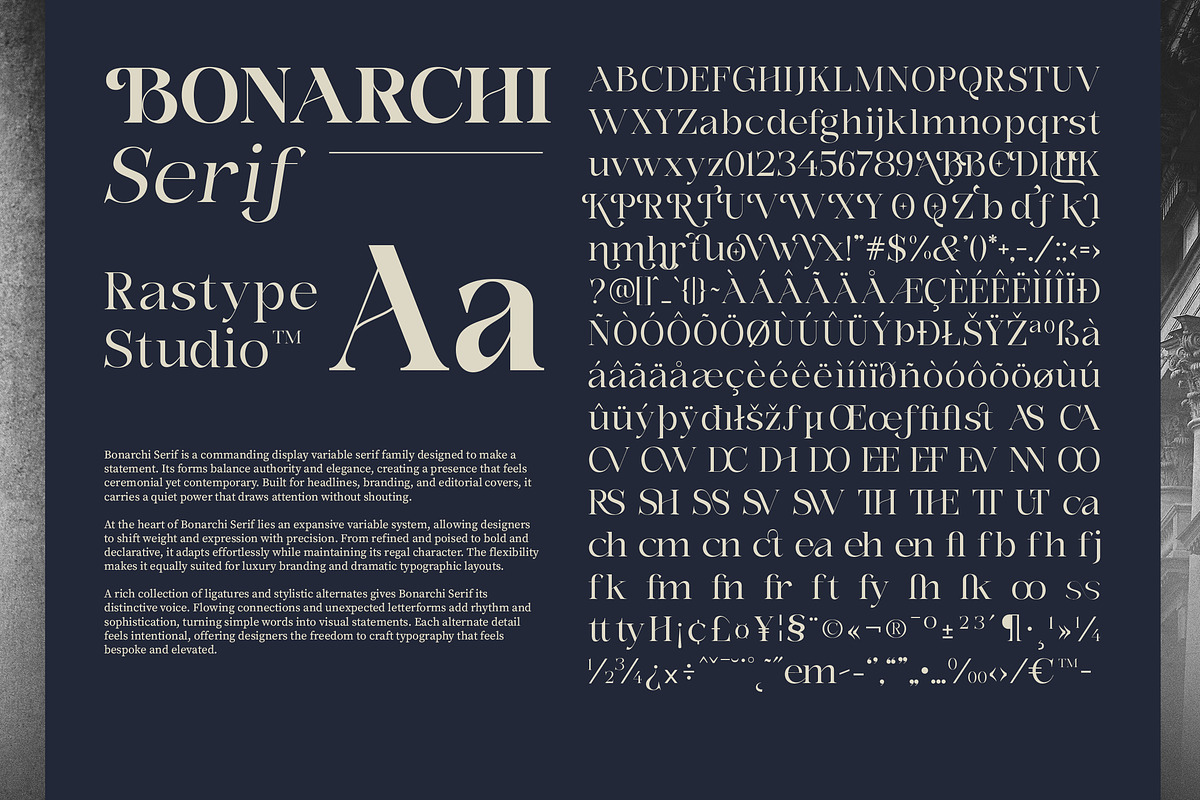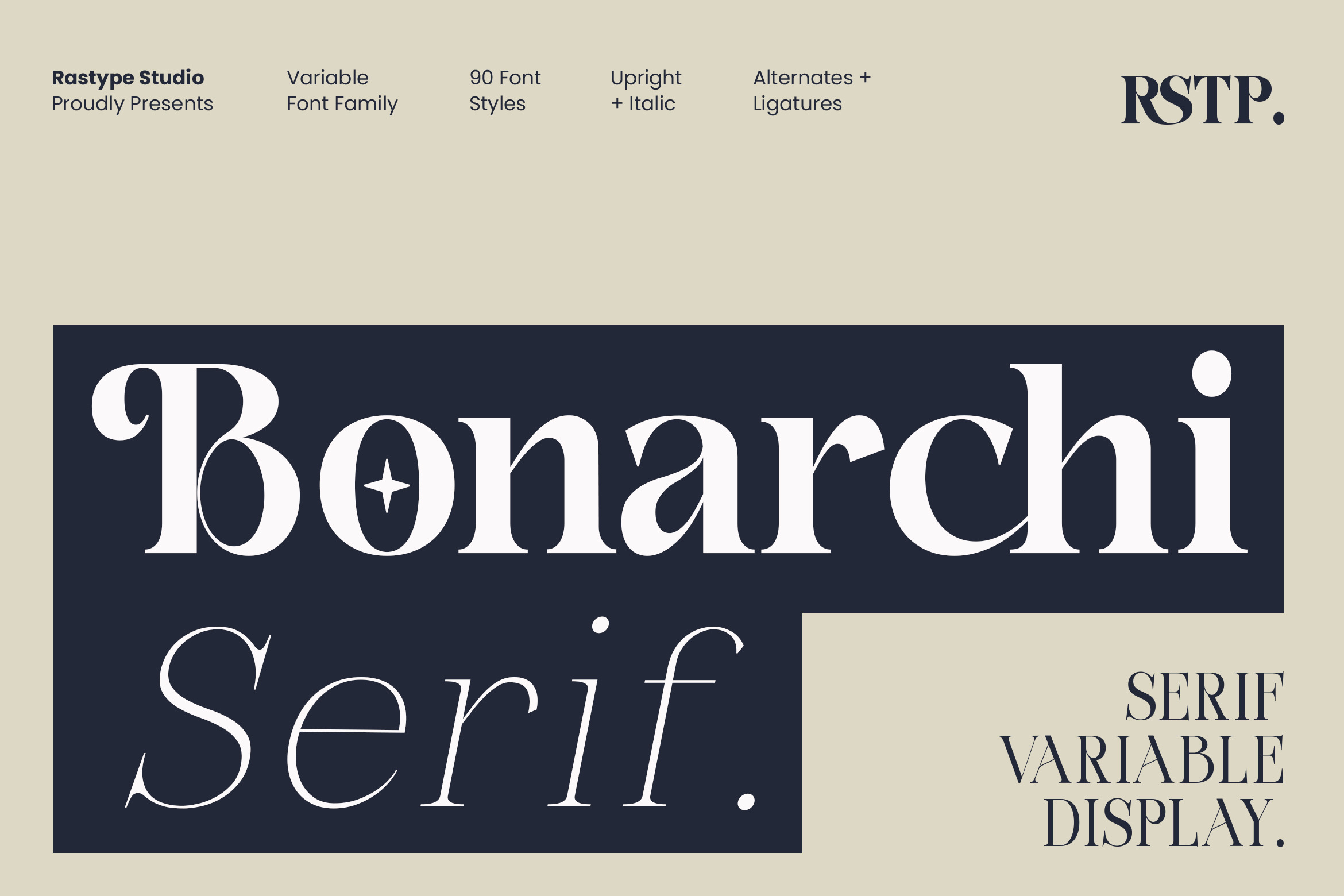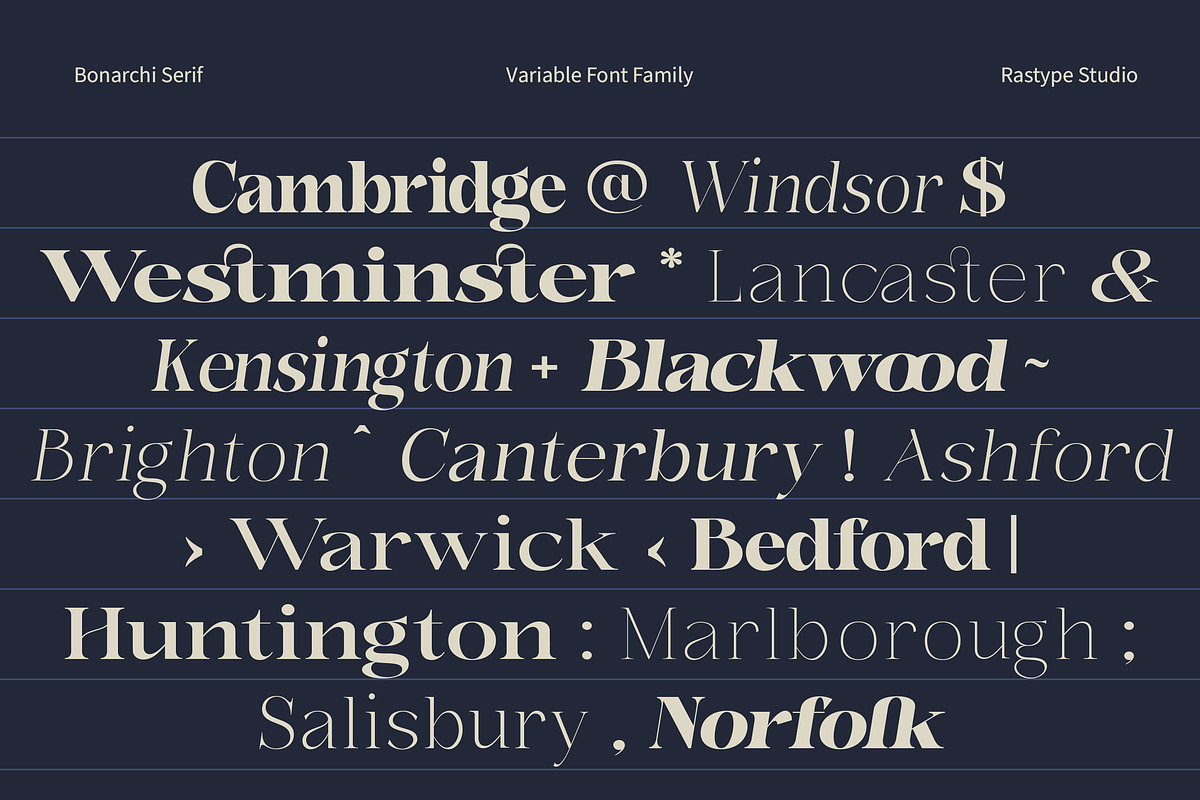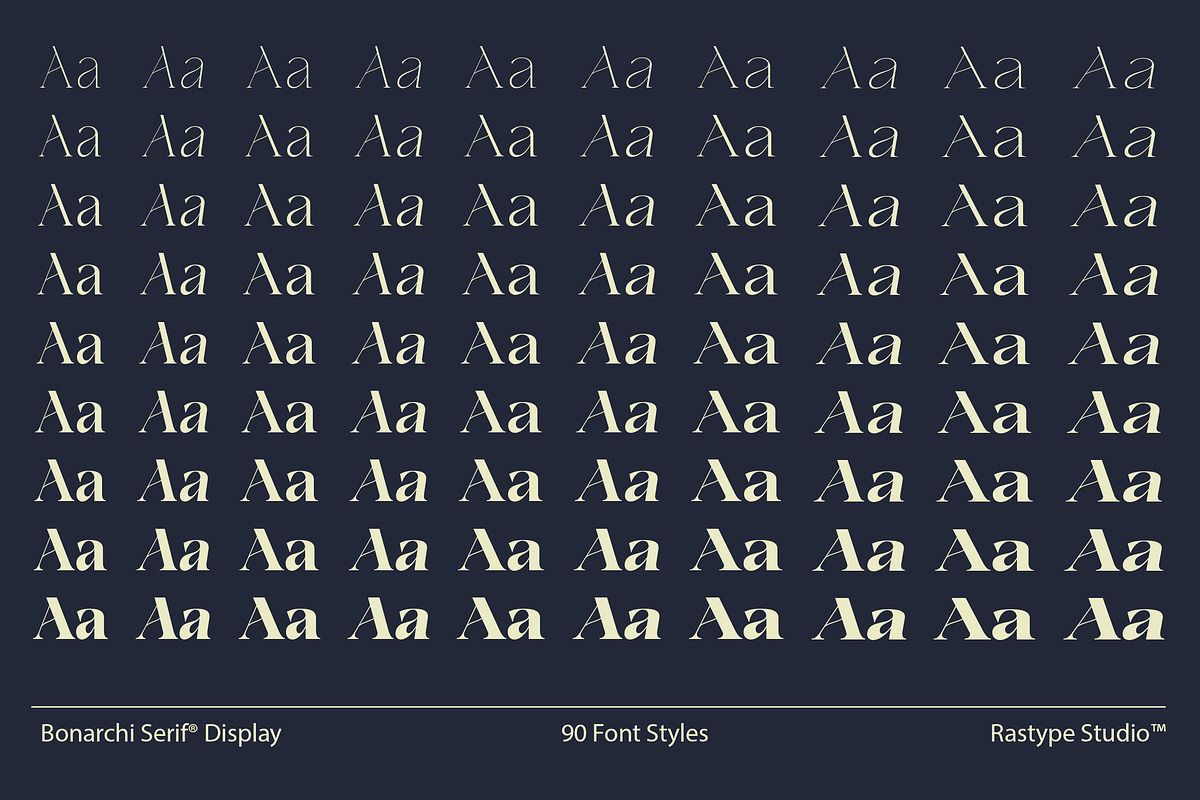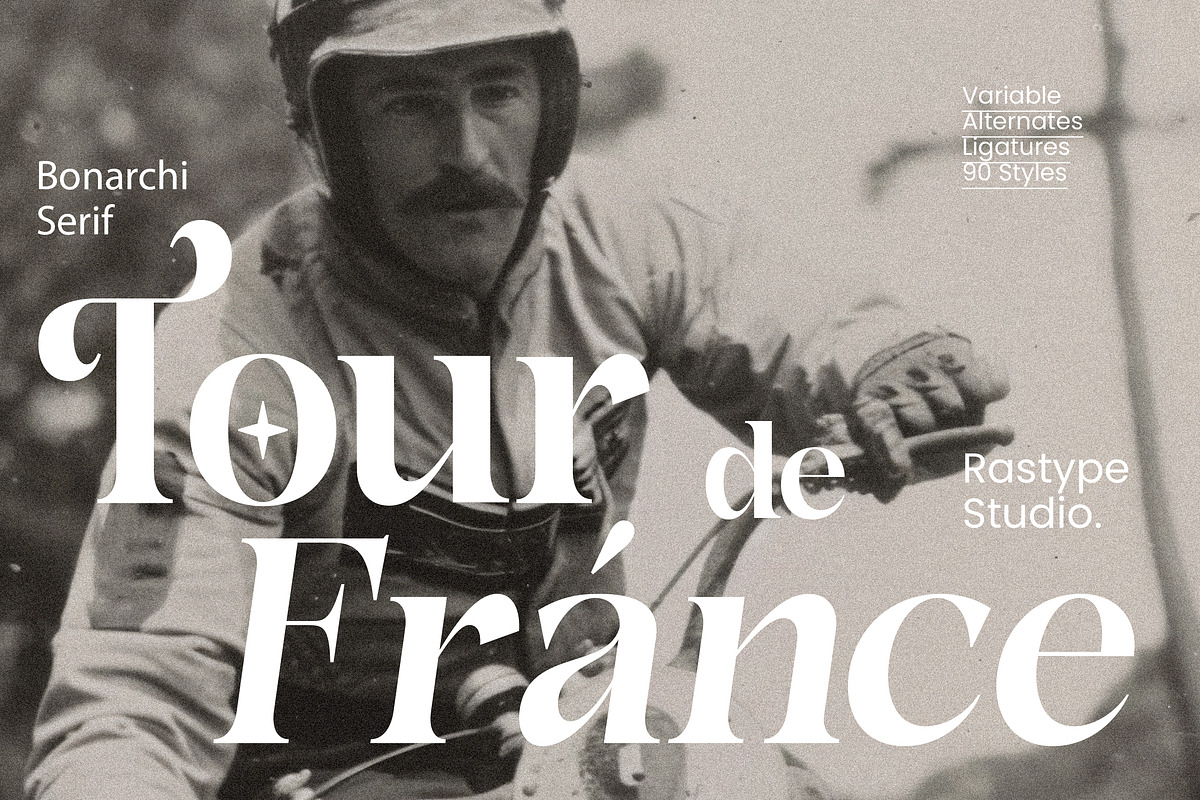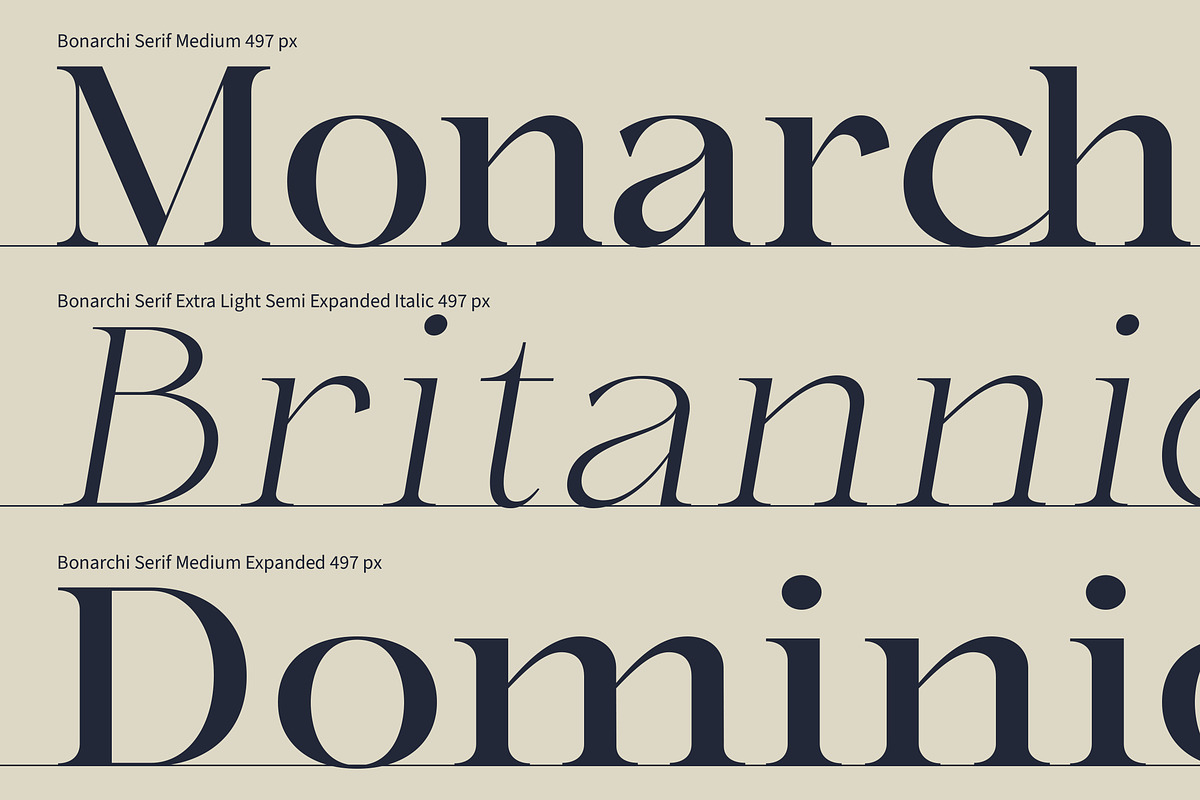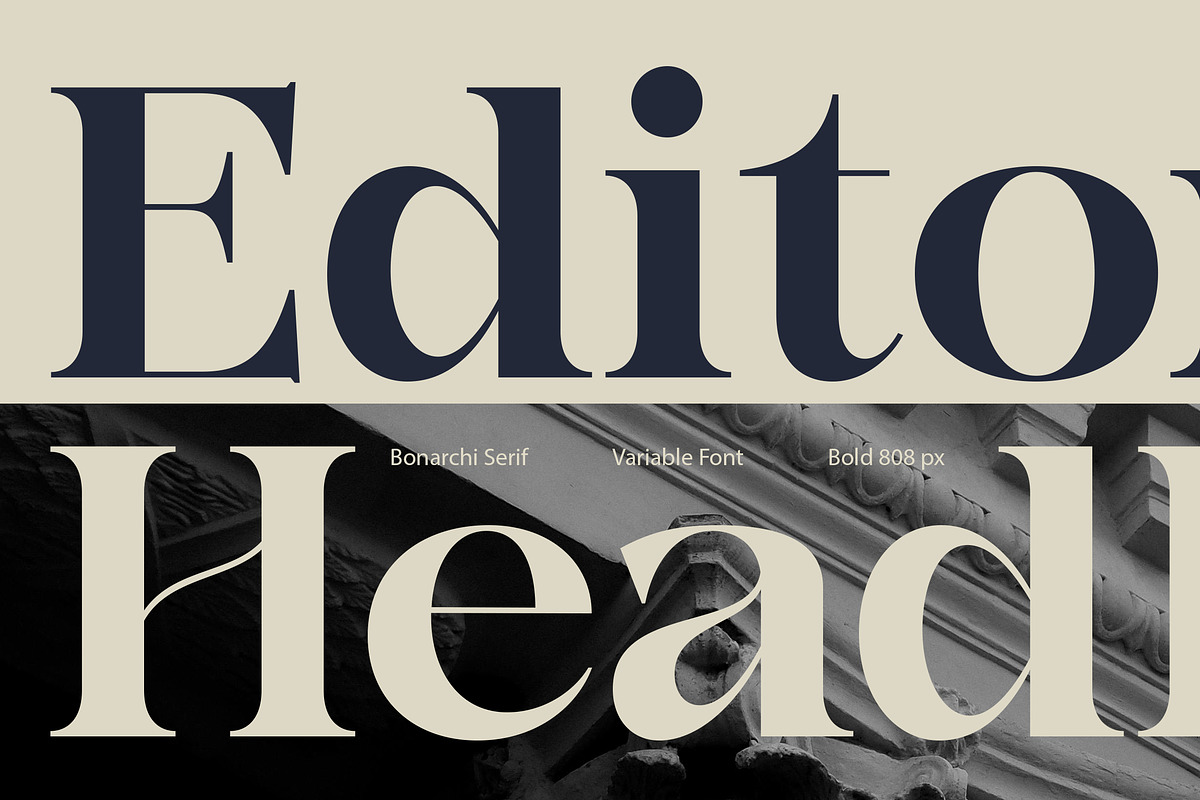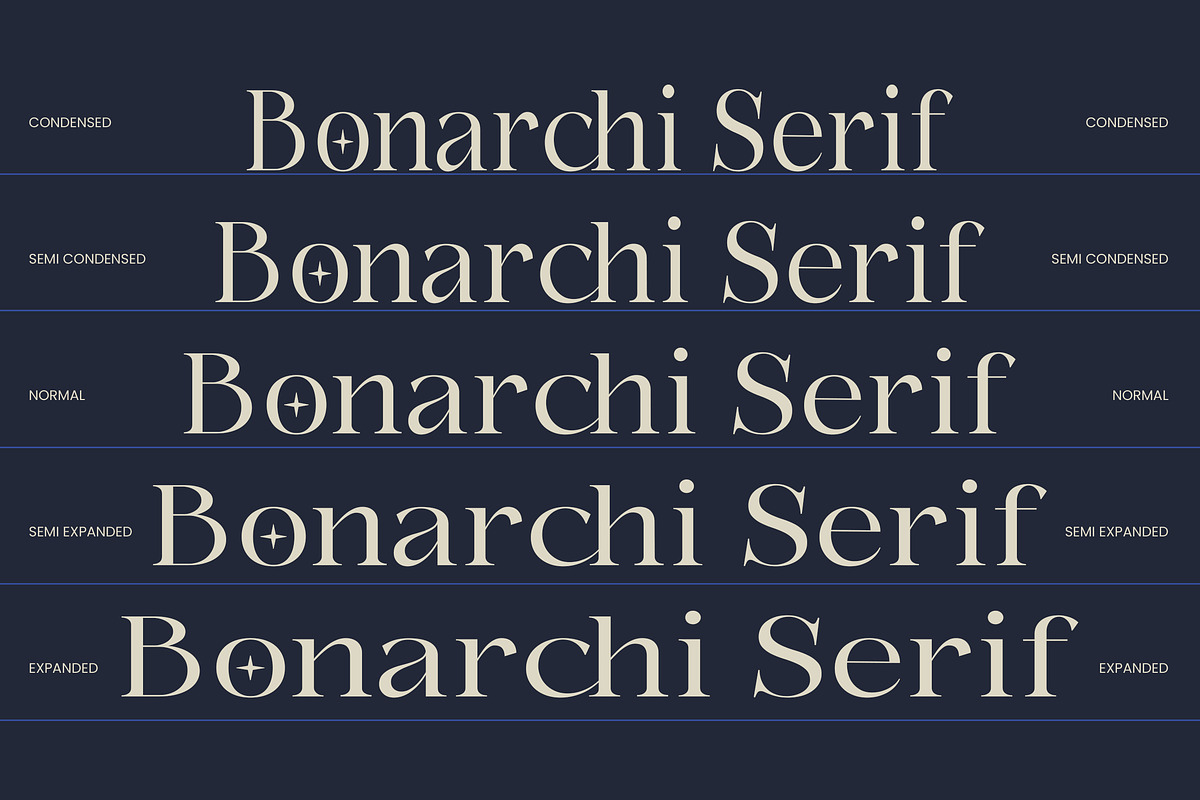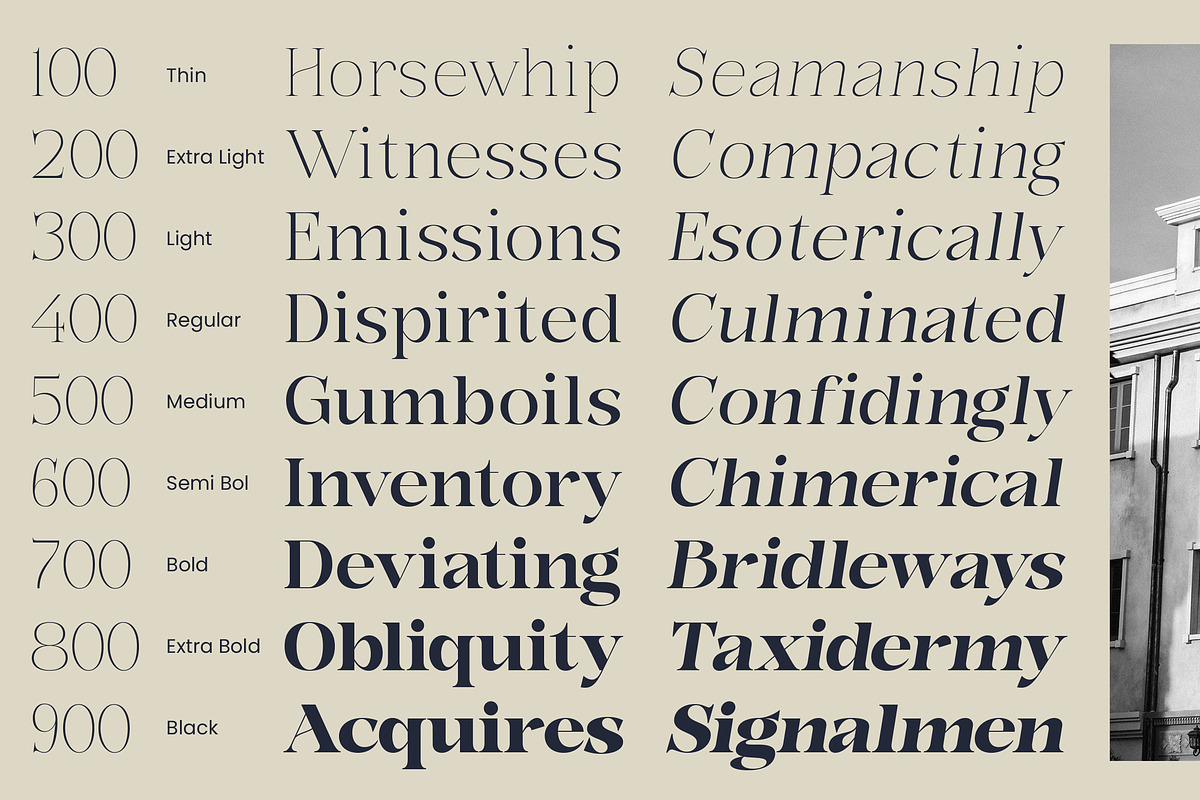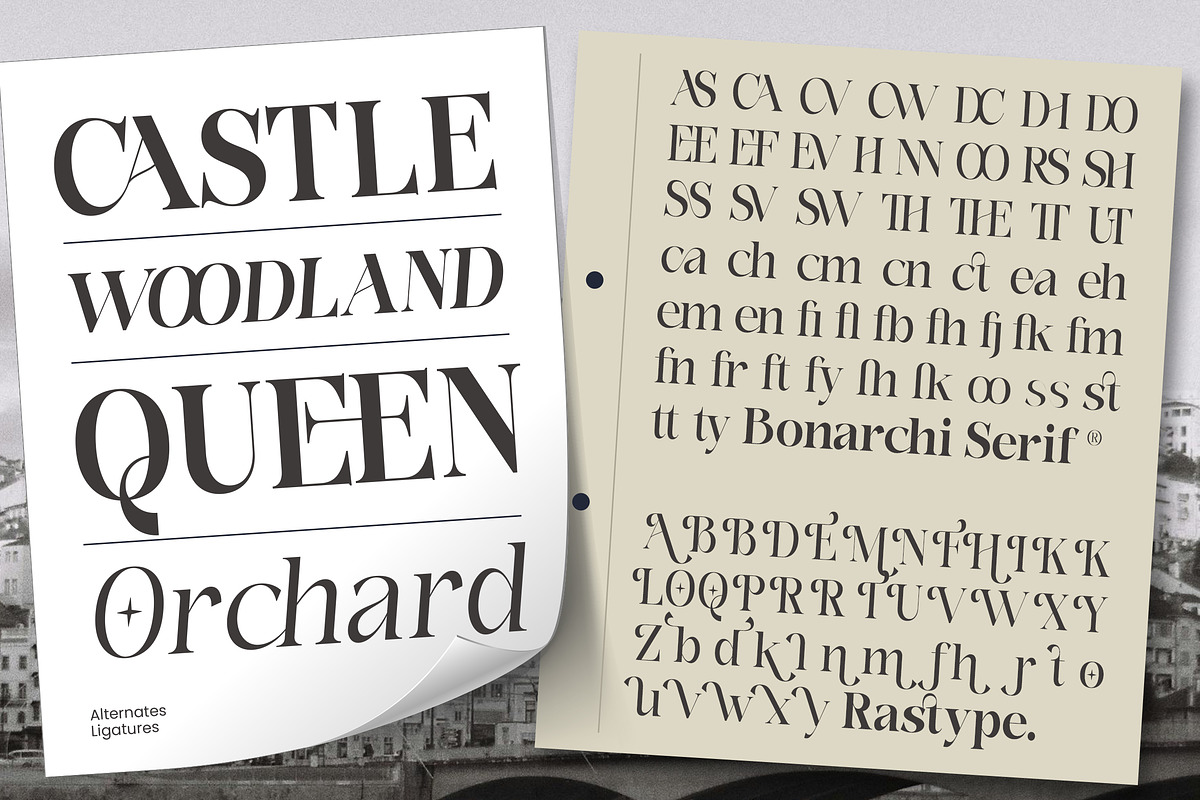
Bonarchi - Family Font
Bonarchi Serif is a refined display serif typeface that blends classic sophistication with a contemporary edge. Designed by Rastype Studio, it features high contrast between thick and thin strokes, creating a dramatic yet graceful appearance. Its letterforms are elegant and expressive, with sharp serifs and smooth curves that enhance its luxurious feel. The tall, balanced proportions make it ideal for headlines, logos, editorial layouts, and premium branding applications.
As a variable font family, Bonarchi Serif offers extensive style flexibility, including upright and italic versions, multiple weights, alternates, and ligatures. This versatility allows designers to craft everything from bold, high-impact statements to delicate, sophisticated compositions.